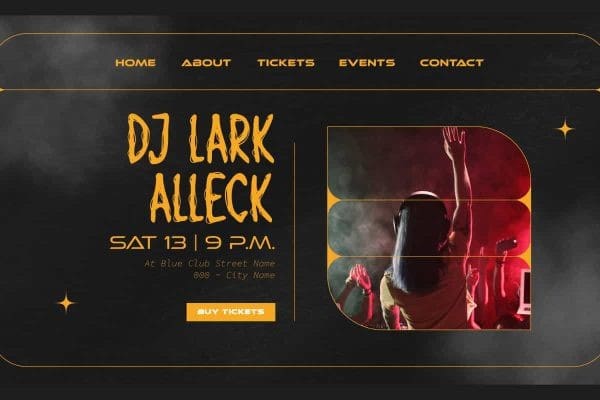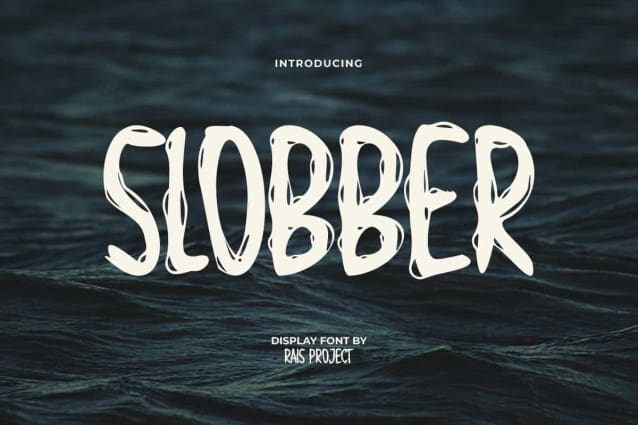
Slobber Display Font
Slobber Display Font is a playful yet horror display font which will be great for gaming, movies etc. The lines around the letters make their appearance even more scary and unique. It would be good for your design, such as brand image, invitation, label, menu, poster, signage, stationery, website page, and more!
Slobber Display Font includes a full set of ALL CAPS for Uppercase and Lowercase Letters, Numerals, and large range of Punctuation. This horror font will be suitable for various industries, such as event or festival, fashion, game, movie, photography, printing, publishing, etc.